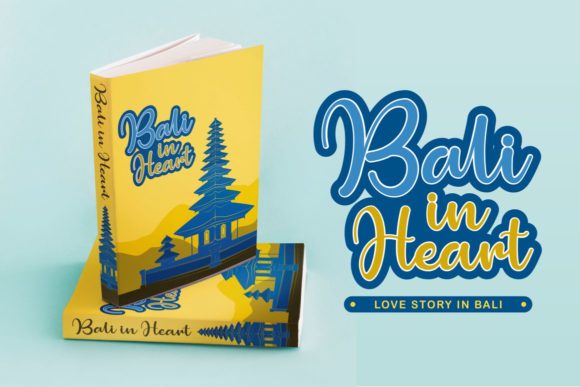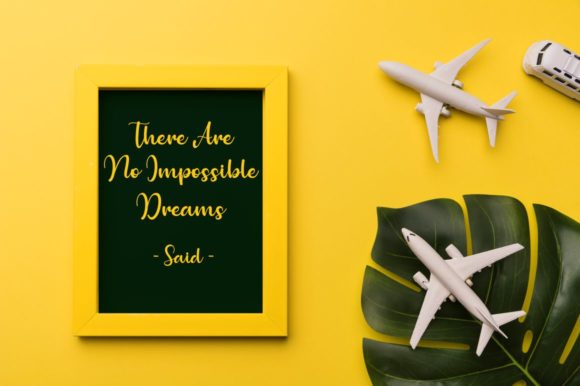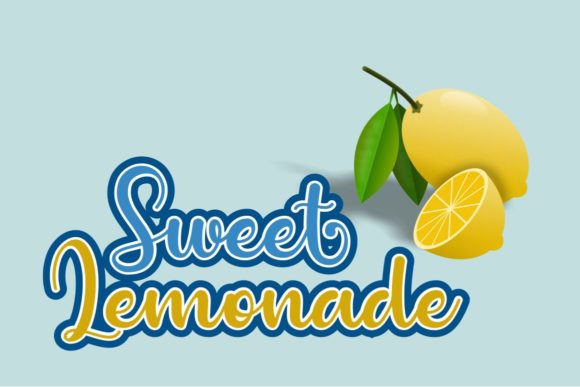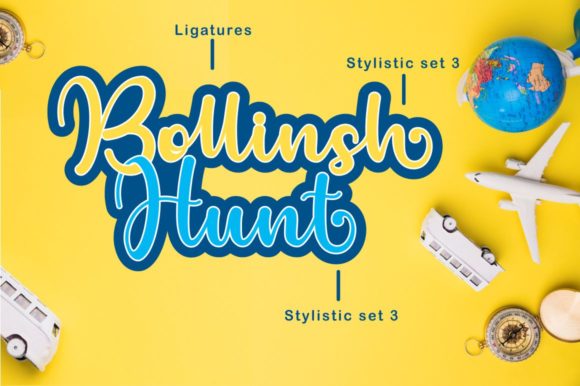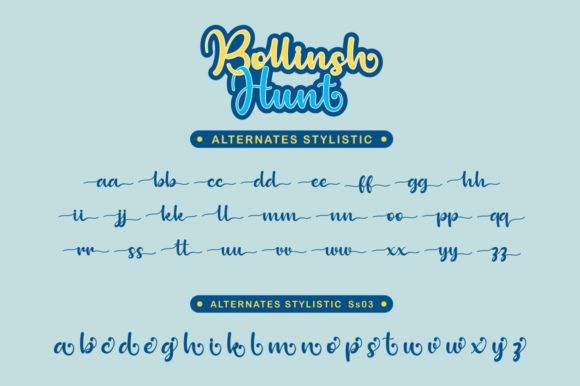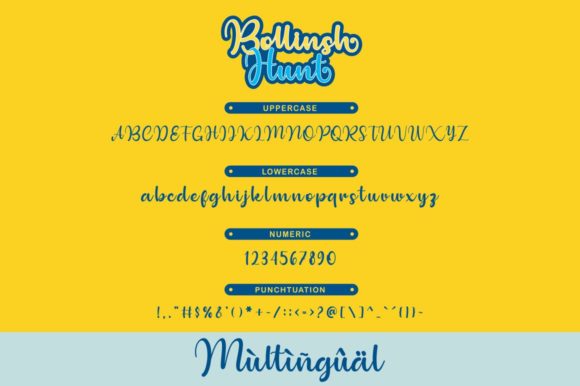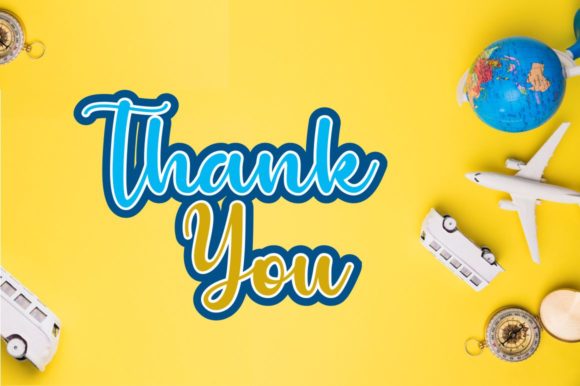
HomeScript FontsBollinsh Hunt Font Script Fonts Bollinsh Hunt Font FacebookXPinterestWhatsApp Bollinsh Hunt Font Poster 2 Bollinsh Hunt Font Poster 3 Bollinsh Hunt Font Poster 4 Bollinsh Hunt Font Poster 5 Bollinsh Hunt Font Poster 6 Bollinsh Hunt Font Poster 7 Bollinsh Hunt Font Poster 8 About Bollinsh Hunt Font Bollinsh Hunt is a carefully handlettered script, perfect for any school-themed crafts! DOWNLOAD NOW People also explored Krazy Klown Casino Fancy With Snowman Font Anadego Font California Sunrise Font Carpe Diem Bold Font North Font Simple Planner Font Camping Doodle Font 345 0 TagsBollinsh Hunt Font Previous articleShanella FontNext articleSouthwill Font LEAVE A REPLY Cancel reply Comment: Please enter your comment! Name:* Please enter your name here Email:* You have entered an incorrect email address! Please enter your email address here Website: Save my name, email, and website in this browser for the next time I comment. Personal Use Free Mueband Personal Use Free Read more about this font Hello Sister Personal Use Free Read more about this font Indonesia Dermawan Personal Use Free Read more about this font Rasiday Personal Use Free Read more about this font BLOG How to Cut Any Font on Cricut: Convert a Font to SVG (Free) Turn any font into a clean SVG so it cuts crisp on Cricut - a quick 3-step workflow using a free font-to-SVG tool. Best Fonts for T-Shirt Design – Top 2025 Picks Top 10 Handwritten Fonts That Elevate Your Designs Free Fonts Risk: Why Free Fonts Can Be Dangerous for Designers